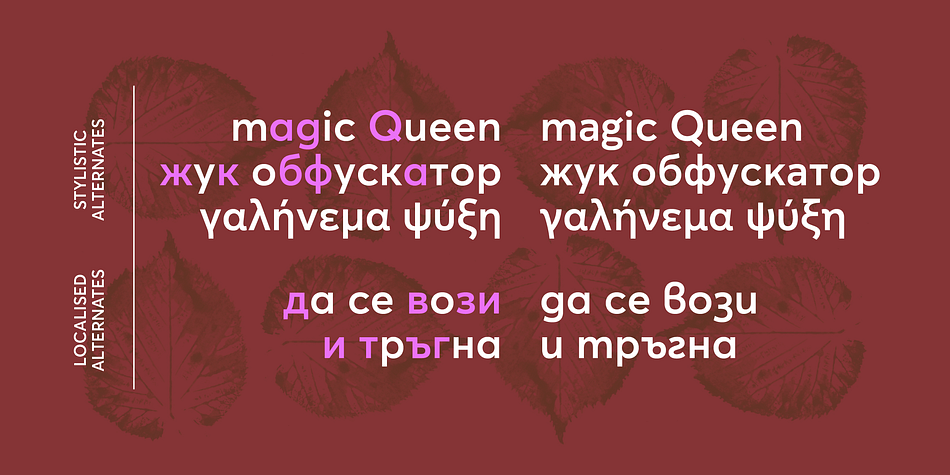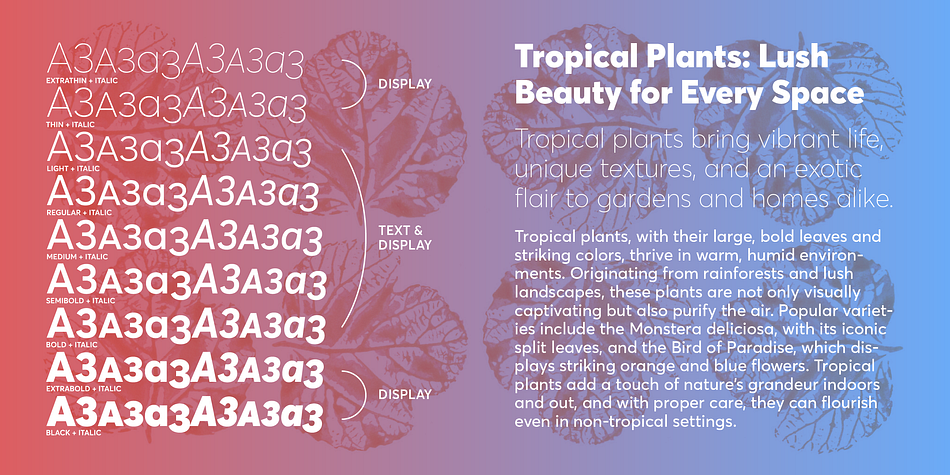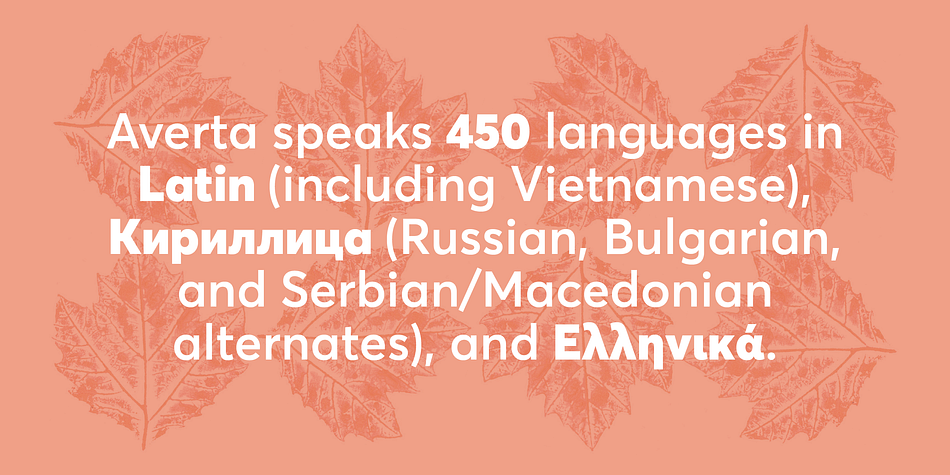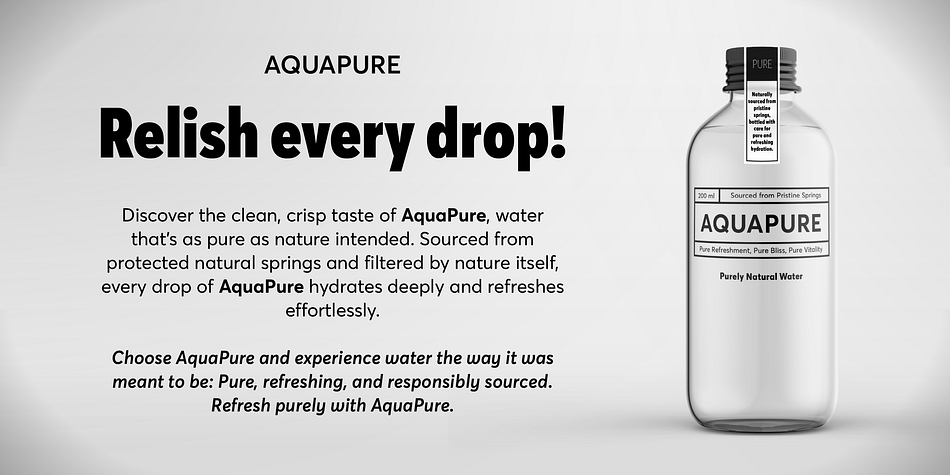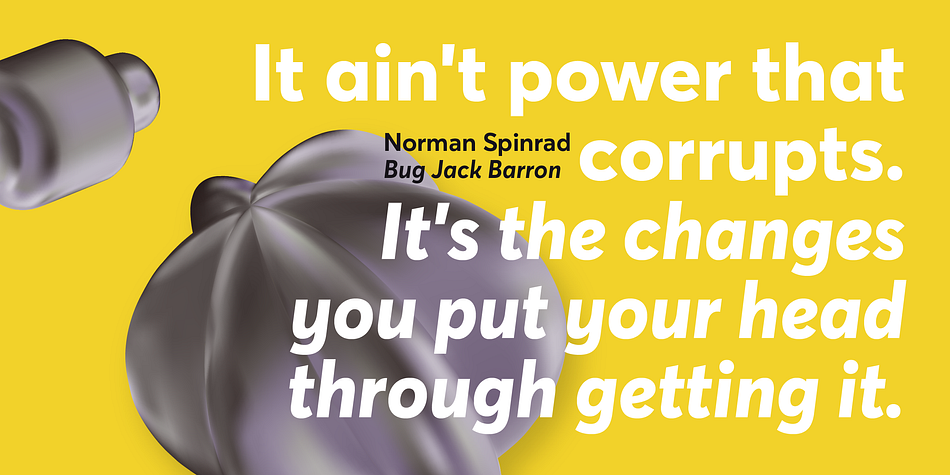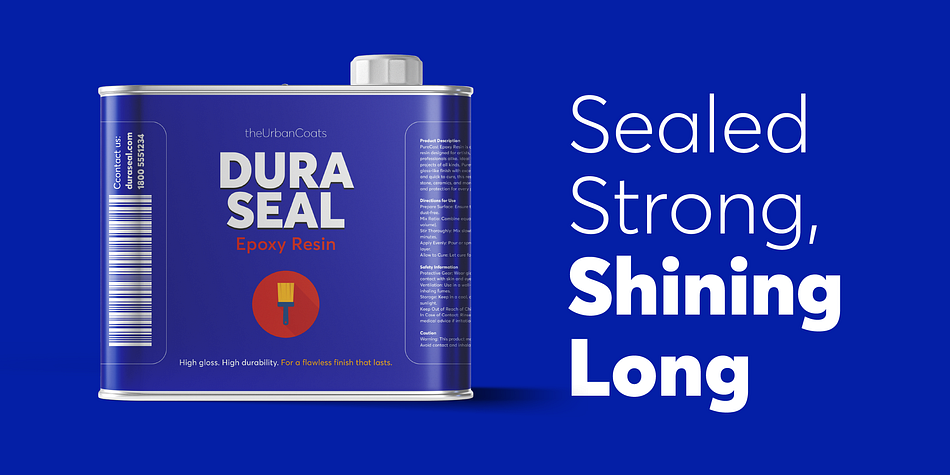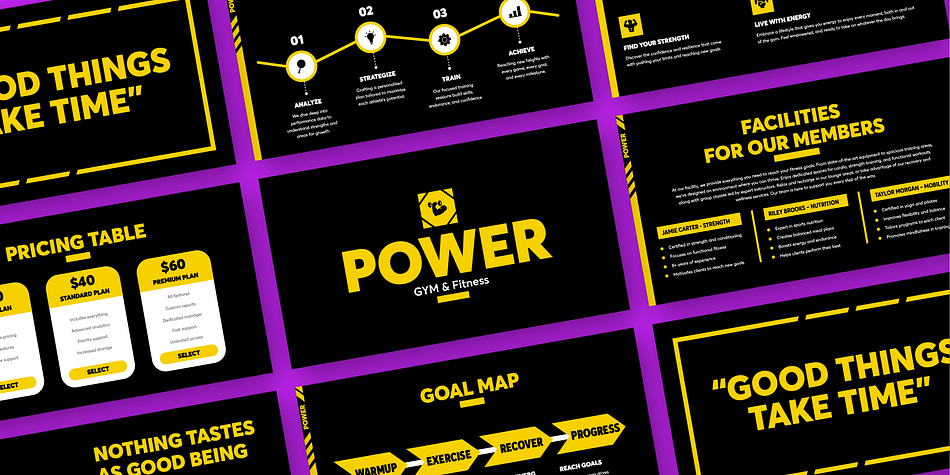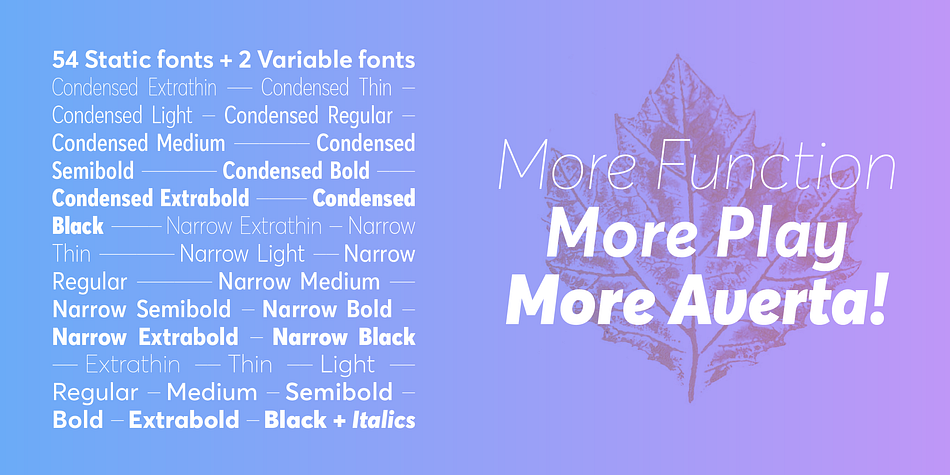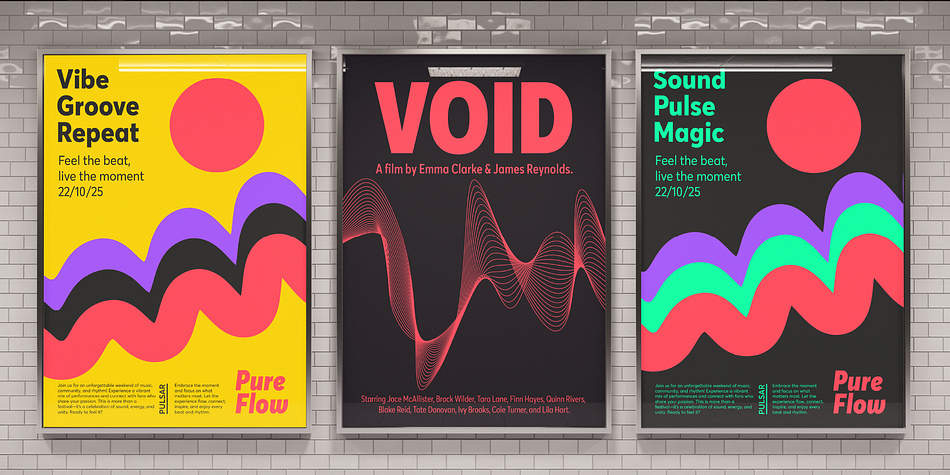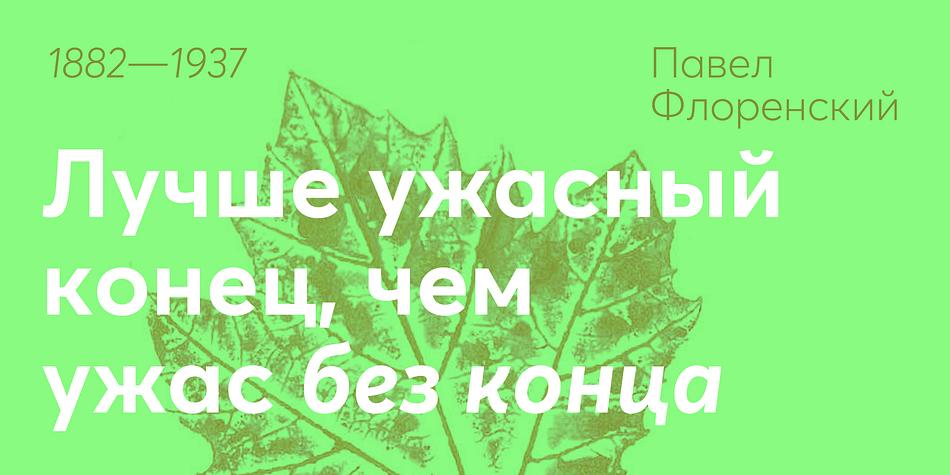
Averta Standard PE
Designed by Kostas Bartsokas, Averta Standard PE is a sans serif font family. This typeface has fifty-six styles and was published by Kostas Bartsokas.
Averta Standard is the basic version of Averta.
If you’ve got something to say, use Averta!
Not illuminated with strings of lights, nor decorated in any way, Averta does not mince your words; the name is Greek (αβέρτα) and means to act or to speak openly, bluntly, without hiding.
With Averta you will be recognised as direct and clear in a warm, appealing and friendly manner.
Designed by Kostas Bartsokas to remind us of clear geometric shapes in monolinear strokes, Averta firmly rests in the tradition of constructed grotesques from the first half of the twentieth century in Central Europe.
Open apertures and a set of alternate characters such as a two-storey ‘a’ and a double-sloped ‘g’, typically found in Anglo-American gothics, lend the typeface warmth and express an appealing personality.
Its portfolio of nine weights from extra-thin to black result in an extremely versatile family.
The five middle-weights of Averta were specifically designed for improved legibility at small sizes.
As a sign of true mastery of the geometric genre, this is achieved through careful refinement in those moments were bows transition into stems. On the other hand, the two lightest and the two heaviest weights are improved to assume a confident presence in headlines.
Where would the geometric genre be without shapeshifting full circles into smooth ovals?
In order to be prepared for tight headlines or slim columns (and to avoid letterform distortions) the family range of Averta is enriched with optically enhanced Narrow and Condensed widths.
To make your life easy, all of the widths and weights are available in one convenient Variable Font file.
Equipped with all of these design decisions, Averta is suited for a range of applications from signage systems to visual identities and editorial design details.
Averta Standard is the basic version of Averta.
If you’ve got something to say, use Averta! Not illuminated with strings of lights, nor decorated in any way, Averta does not mince your words; the name is Greek (αβέρτα) and means to act or to speak openly, bluntly, without hiding. With Averta you will be recognised as direct and clear in a warm, appealing and friendly manner.
Designed by Kostas Bartsokas to remind us of clear geometric shapes in monolinear strokes, Averta firmly rests in the tradition of constructed grotesques from the first half of the twentieth century in Central Europe. Open apertures and a set of alternate characters such as a two-storey ‘a’ and a double-sloped ‘g’, typically found in Anglo-American gothics, lend the typeface warmth and express an appealing personality. Its portfolio of nine weights from extra-thin to black result in an extremely versatile family.
The five middle-weights of Averta were specifically designed for improved legibility at small sizes. As a sign of true mastery of the geometric genre, this is achieved through careful refinement in those moments were bows transition into stems. On the other hand, the two lightest and the two heaviest weights are improved to assume a confident presence in headlines. What’s more, in contrast to the geometric nature of Averta’s upright styles, no compass and ruler were involved in the design of its corresponding italics, adding a slightly humanist touch and even more versatility to the family.
Where would the geometric genre be without shapeshifting full circles into smooth ovals? In order to be prepared for tight headlines or slim columns (and to avoid letterform distortions) the family range of Averta is enriched with optically enhanced Narrow and Condensed widths. To make your life easy, all of the widths and weights are available in one convenient Variable Font file. Equipped with all of these design decisions, Averta is suited for a range of applications from signage systems to visual identities and editorial design details. Needles to say that Averta comes with small caps and a whole range of figure sets, including proportional and tabular sets for old-style and lining figures respectively.
Averta Standard comes with alternate glyphs, case sensitive forms and contextual alternates, in three widths, with nine weights and matching italics and supports your words in over 400 hundred languages as a multi-script typeface that unites Latin, Greek and Vietnamese alphabets as well as award-winning Cyrillic (3rd at 2017 Granshan Awards) under one roof. Localised letterforms for Bulgarian, Macedonian, Russian and Serbian Cyrillics are included to accommodate your words carefully, but precisely.
Designer Kostas Bartsokas